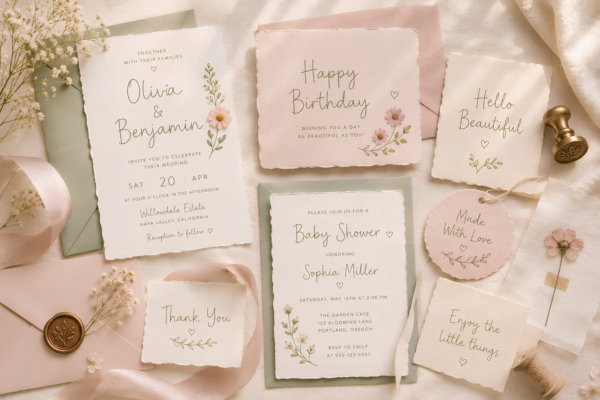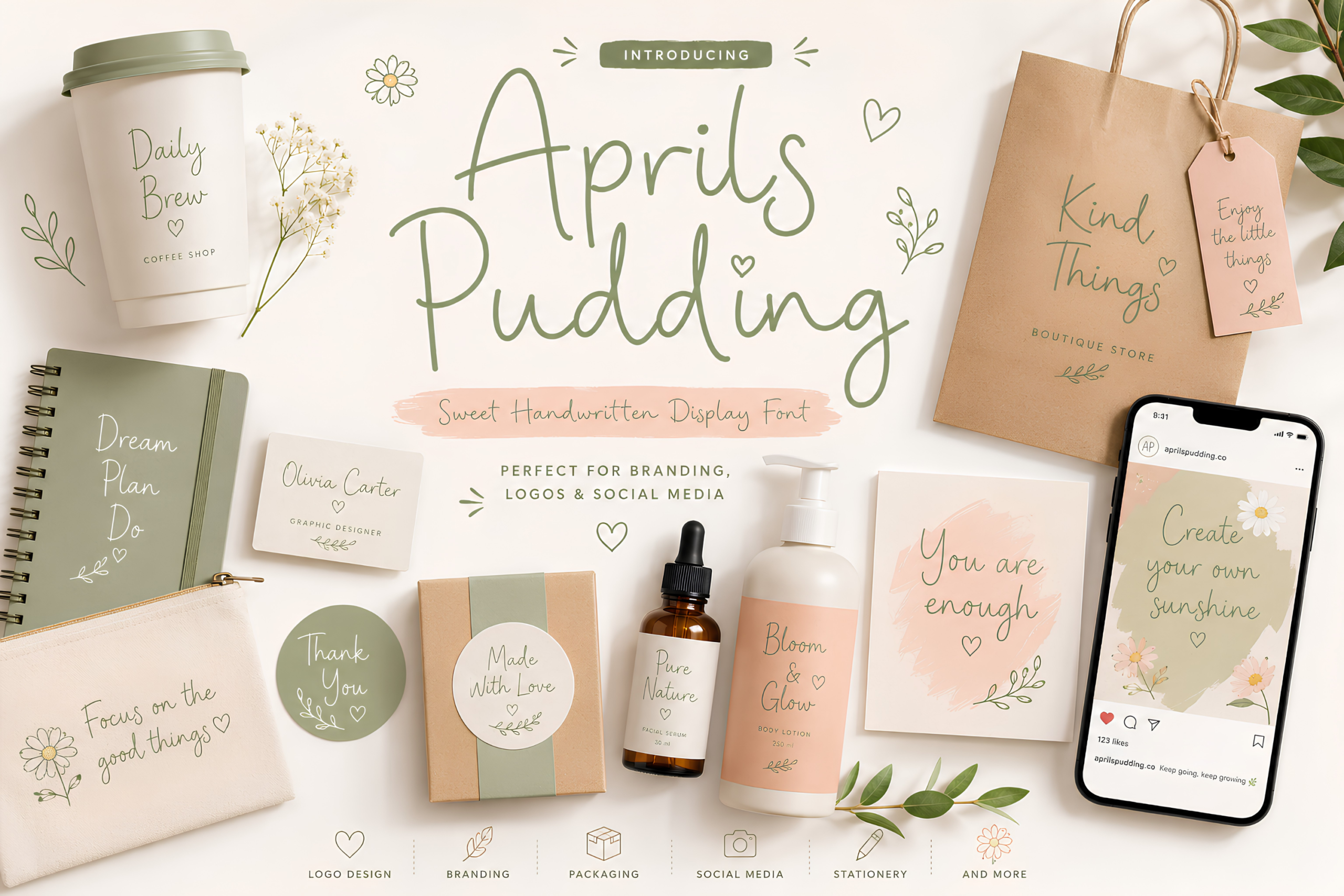
Aprils Pudding Font – Free Sweet Handwritten Display Font with Ligatures & Alternates
Aprils Pudding – Free Sweet Handwritten Display Font
Aprils Pudding is a charming handwritten display font that captures the warmth and authenticity of natural handwriting. With clean monoline strokes, a playful personality, and a handcrafted feel, it adds a fresh, friendly touch to any creative project.
Featuring 158 ligatures and 35 stylistic alternates, Aprils Pudding creates smooth, natural-looking lettering while reducing repetitive character patterns for an authentic handwritten appearance.
Perfect For
- Logo Design
- Brand Identity
- Product Packaging
- Wedding Invitations
- Greeting Cards
- Social Media Graphics
- Instagram & Pinterest Posts
- Handmade Products
- Stickers
- Cricut & Silhouette Projects
- T-Shirts & Merchandise
- Printable Designs
- Website Headers
- Business Cards
- Font Features
- Sweet handwritten display font
- Clean monoline lettering
- Natural handwritten style
- 158 ligatures
- 35 stylistic alternates
- Uppercase & lowercase
- Numbers & punctuation
Why You’ll Love It
Whether you’re designing branding, packaging, invitations, or social media content, Aprils Pudding delivers the perfect balance of casual charm and professional elegance. Its handcrafted style, flowing letterforms, and rich OpenType features help every design feel warm, unique, and beautifully personal.